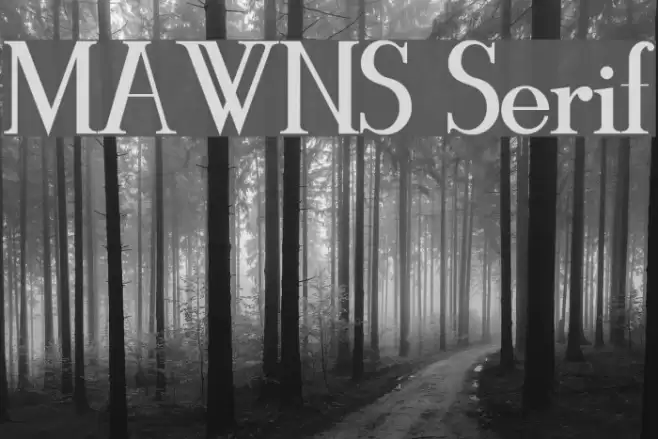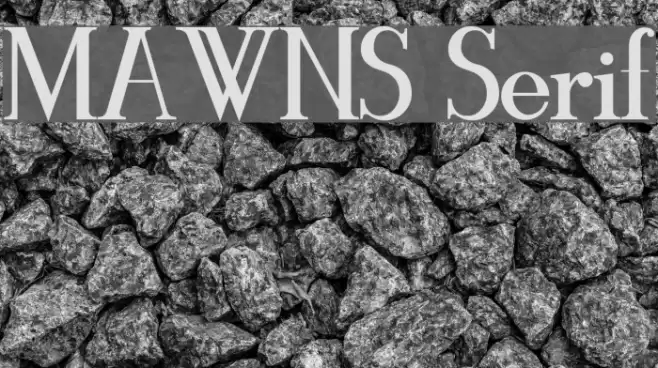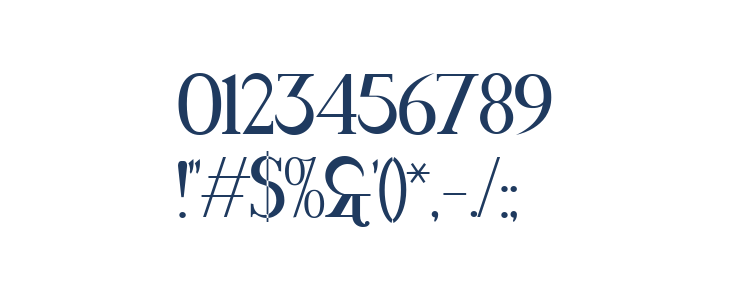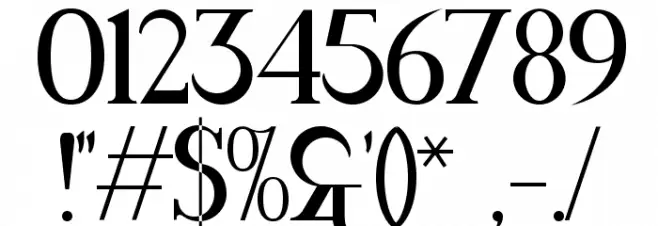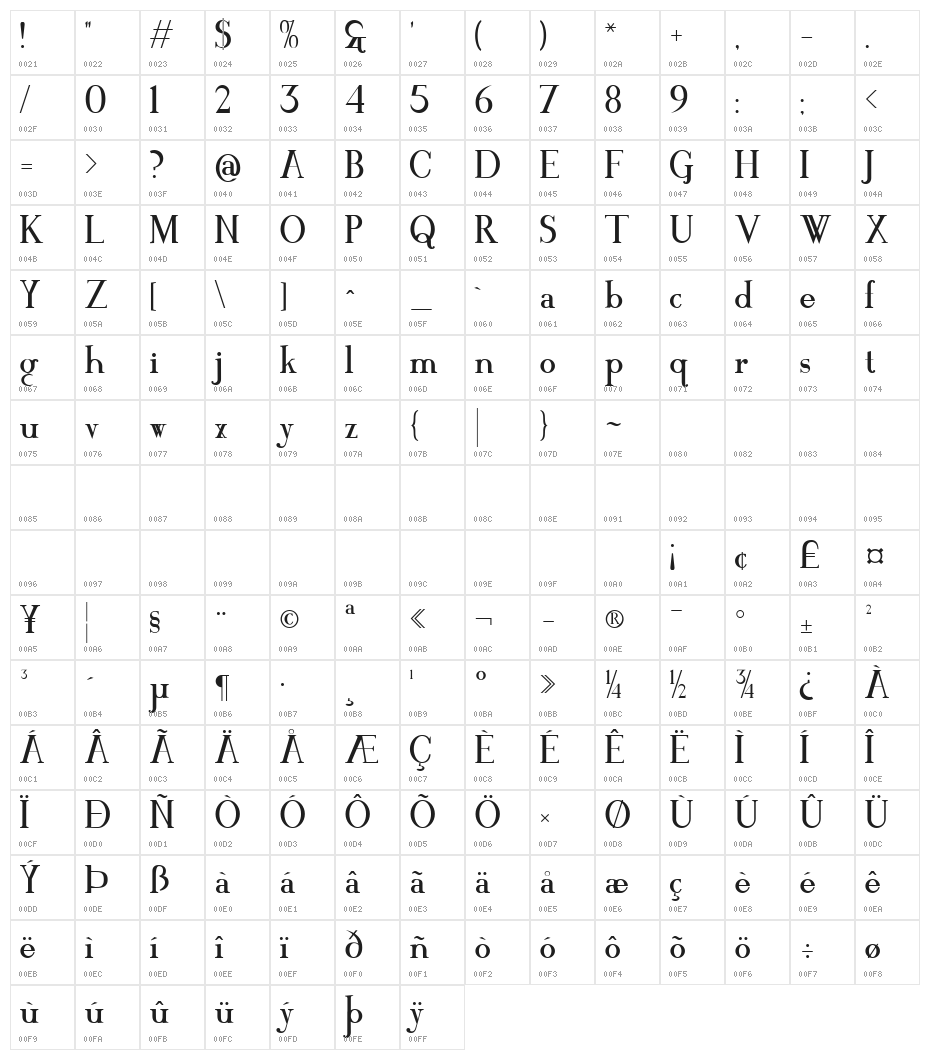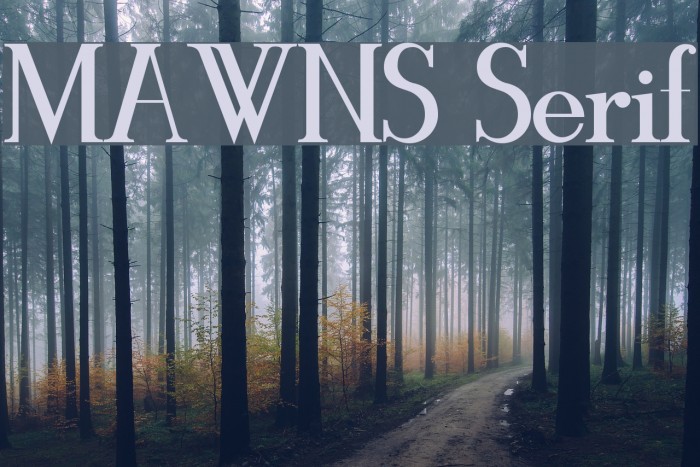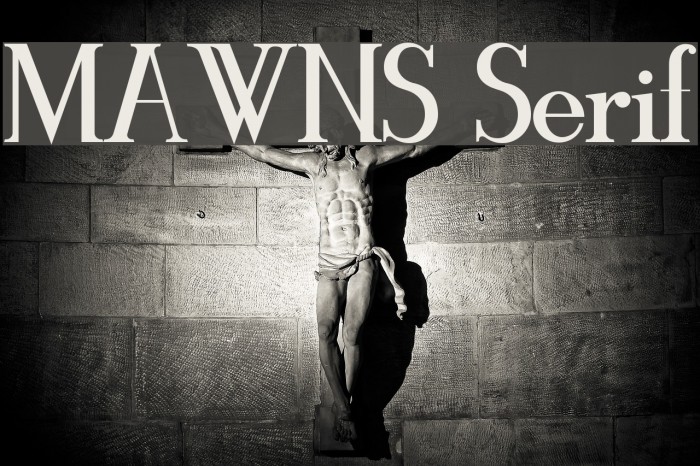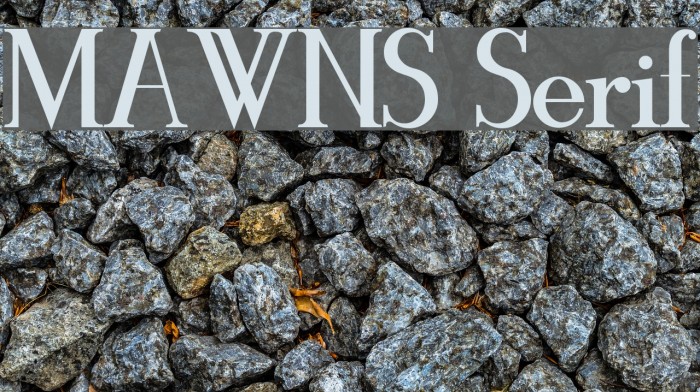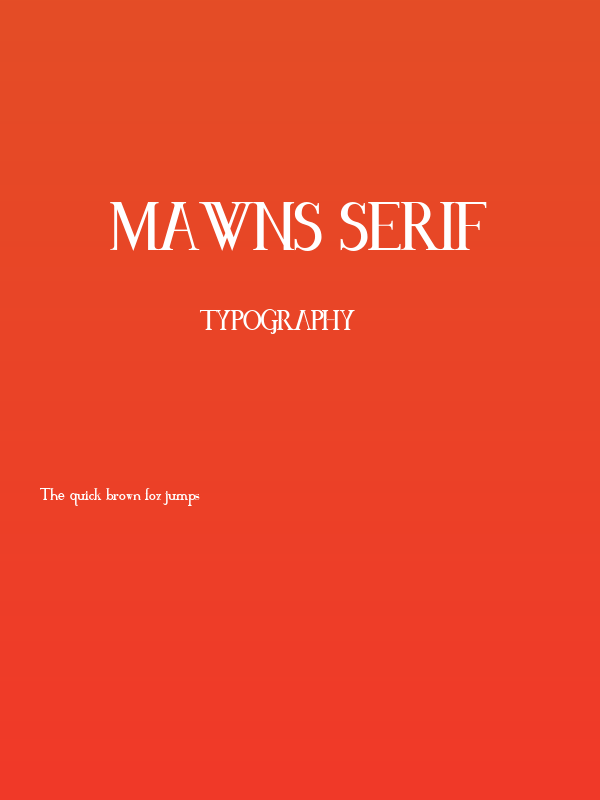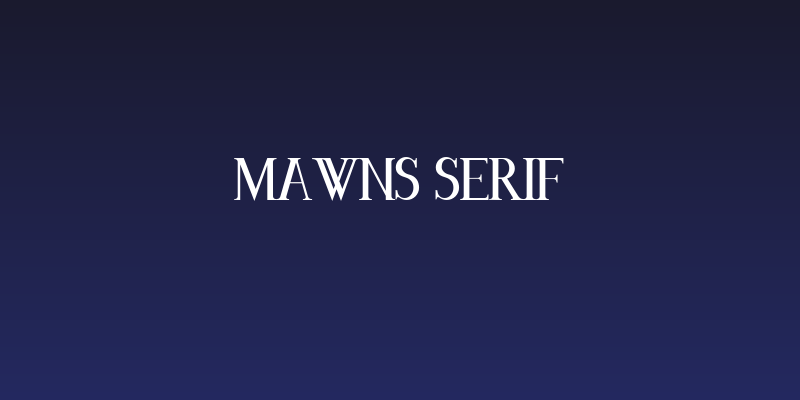
MAWNS Serif Font
MAWNS Serif Description
This serif font features elegant and classic letterforms with a refined and sophisticated appearance. The uppercase letters are tall and stately, with a slight contrast in stroke thickness that adds to their readability and visual appeal. The lowercase letters maintain a consistent style, with rounded curves and sharp serifs that give the font a timeless quality. The numerals are well-proportioned and align perfectly with the overall design, ensuring clarity and balance. Special characters are crafted with attention to detail, complementing the font's overall aesthetic. This font is versatile, suitable for both formal and creative projects.
A classic serif font with elegant, refined letterforms and slight stroke contrast from Uncategorized fonts.
- Proposed Projects: Ideal for book covers, editorial design, branding, and formal invitations.
- Overall Style: Classic